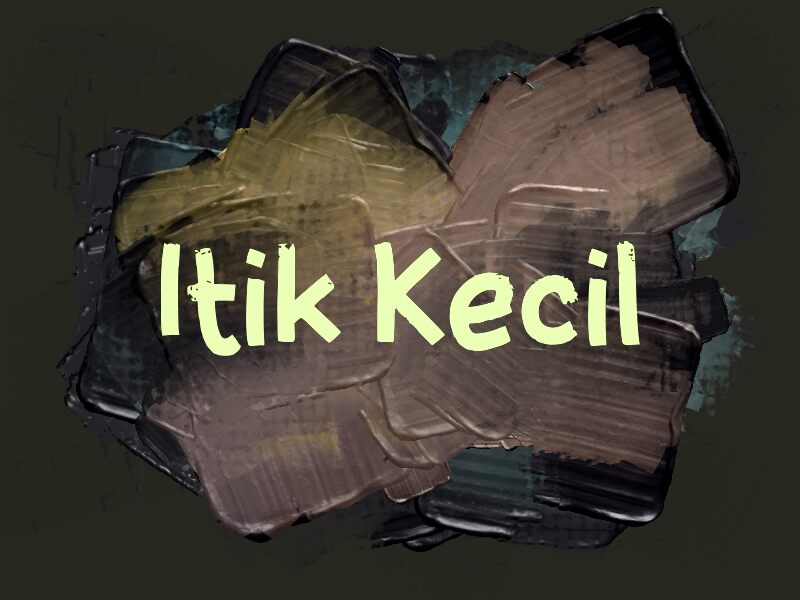
Itik Kecil
Itik Kecil font from wep is a cartoon display font characterized by its rough texture and distressed appearance. The struggle between clean geometric forms and rough textures gives this artistic typeface an inconstant, unrefined, yet interesting feel. Itik Kecil certainly has some casual elements to its style and an overall vibe that shows off its handmade side.
This free handwritten font is the dream of designers looking for something unique to create titles and headings with. Using the font for posters, book covers, branding materials, social media posts, apparel design labels such as T-shirts and hoodies seems like reasonable ideas! Another excellent opportunity for this gem is magazine layouts where it has enough white space around to stand out.